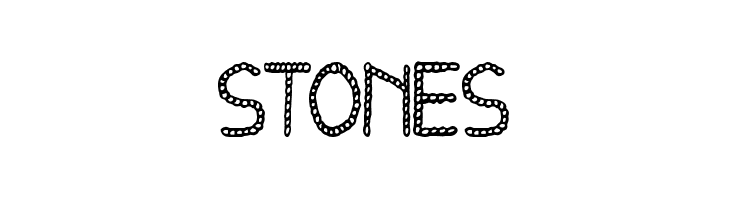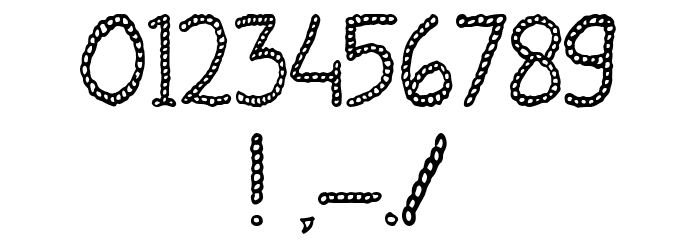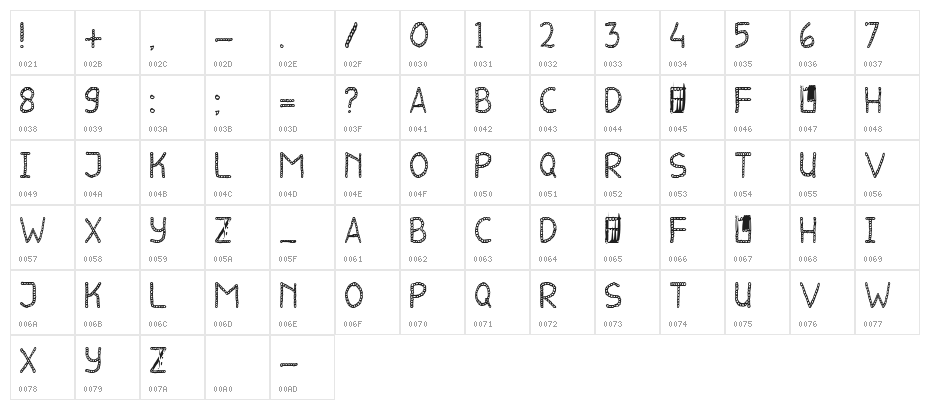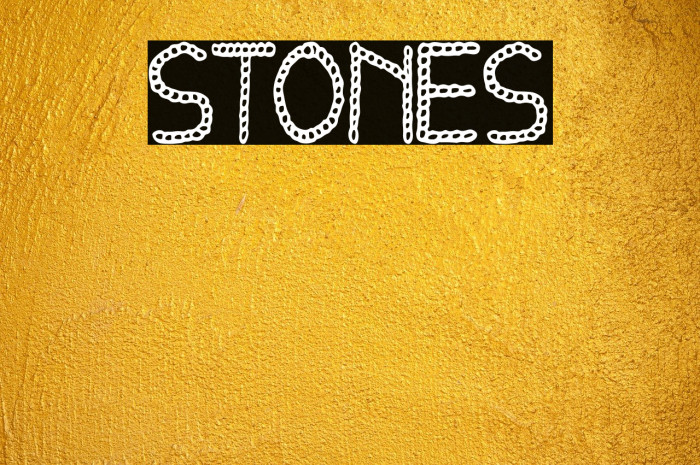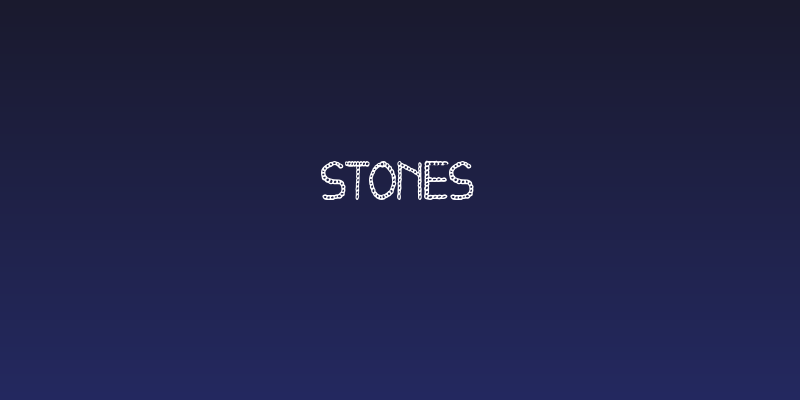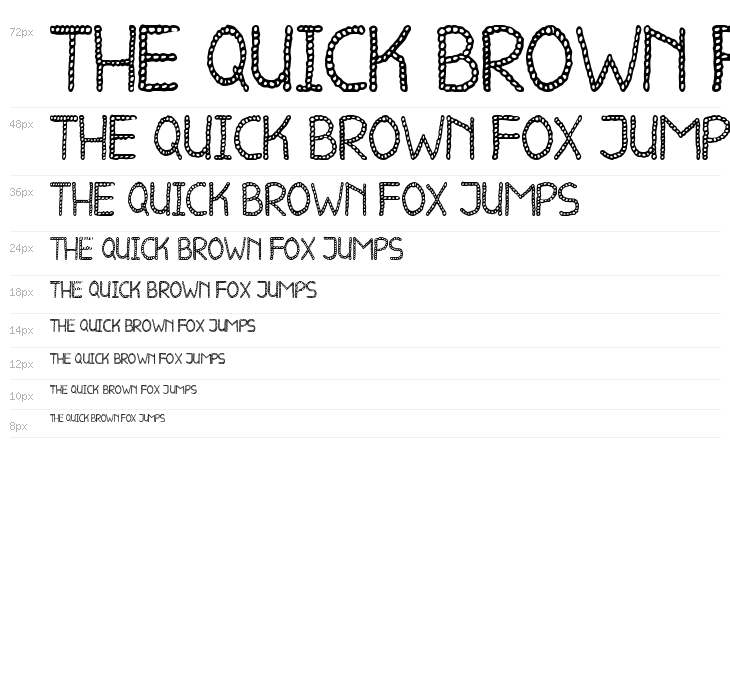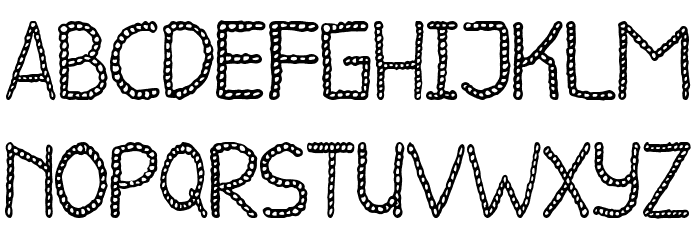
STONES Font
STONES Description
This playful and decorative font features characters composed of small, rounded stones, giving it a unique and textured appearance. The letters are uppercase and have a consistent, bold structure that makes them stand out. The design is reminiscent of pebbles or beads, creating a tactile and organic feel. Each character maintains a uniform size and shape, ensuring readability while adding a whimsical touch. The numbers and special characters follow the same style, making the font cohesive and versatile for various creative applications.
| Proposed Projects | Ideal for children's book covers, playful branding, greeting cards, and creative posters. |